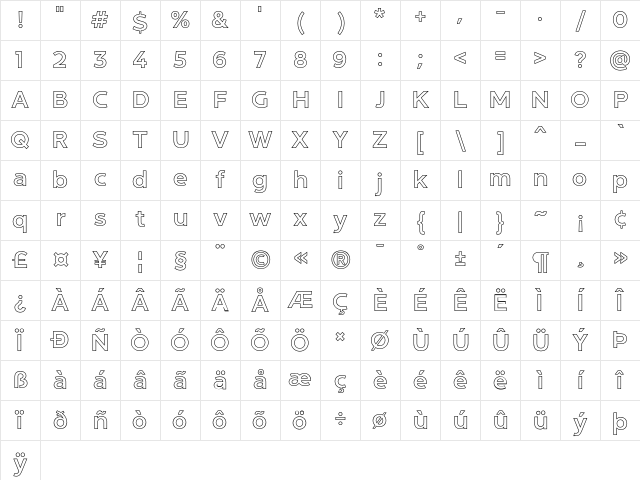
NT Marley Outline Medium
Foundry: Artem Nevsky
Designer: Artem Nevsky
NT Marley Outline Family
NT Marley Outline Medium
Design Context for NT Marley Outline
NT Marley Outline is built around its visual character rather than neutral utility - its distinctive forms are designed to make an impression at display sizes.
Font Pairing: Pair with a clean neutral sans-serif for body copy to let NT Marley Outline's character lead without overwhelming the composition.
Pro Tip: Use NT Marley Outline exclusively at display sizes - it was designed to be seen, not read at length. Let a neutral companion handle body copy.